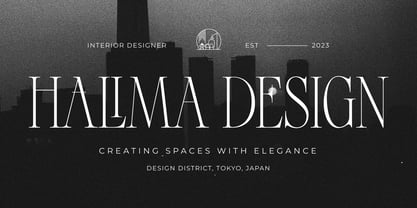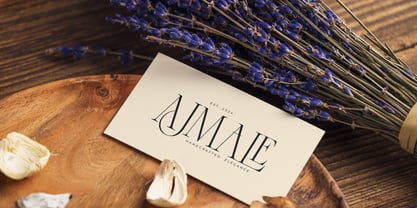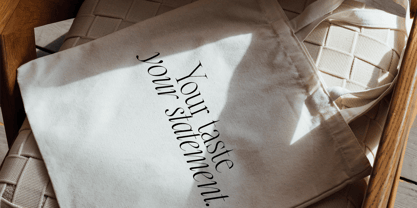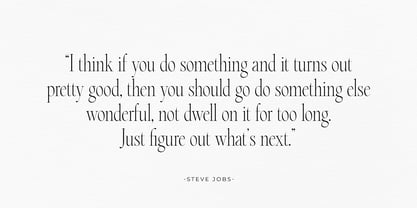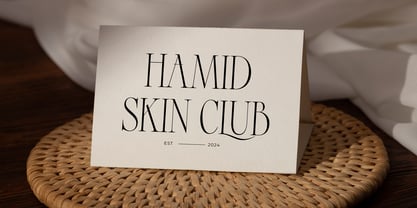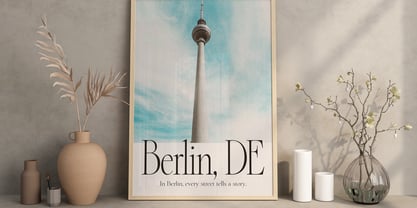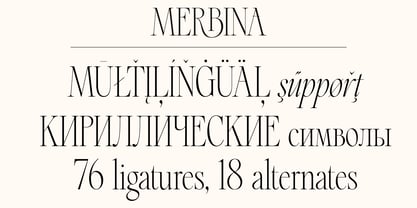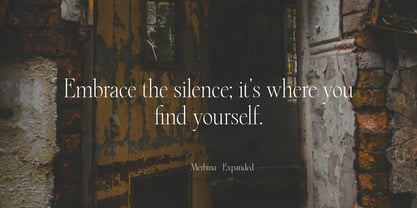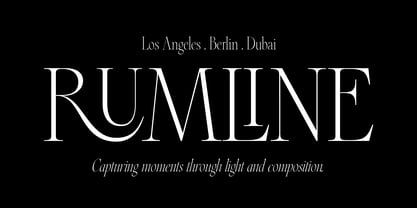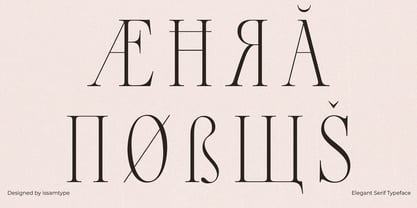
Merbina
by Issam Type
Merbina Font Family was designed by Issam Boufelja and published by Issam Type. Merbina contains 4 styles family package options.
Merbina is an elegant serif typeface with a refined, modern touch. Available in regular, italic, expanded, and expanded italic styles, its graceful serifs and smooth curves make it perfect for luxury branding, logos, invitations, and more.
Merbina comes with uppercase letters, numbers, punctuation, alternates, ligatures, and multilingual support, providing versatility for any project.